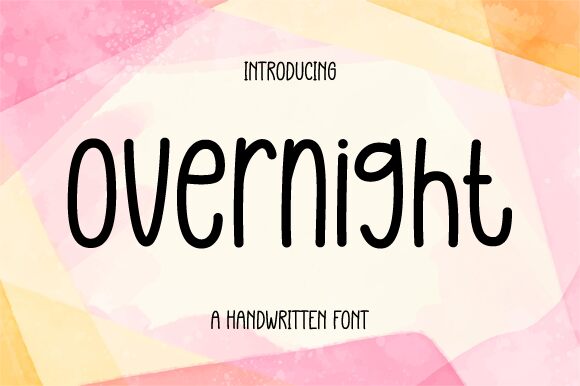
Overnight, designed by Nirmala Creative, is a font that captures the essence of personal touch with its handwritten style. Its semi-light weight lends a delicate and subtle elegance to the script, while the condensed width allows for efficient use of space without sacrificing legibility. This blend of characteristics makes Overnight not just a font but an embodiment of stylish informality.
The unique appeal of Overnight lies in its ability to convey warmth and intimacy, as if each character were thoughtfully penned down. It invites viewers into a world where every word is imbued with personality and intention. The organic flow and casual sophistication make it an excellent choice for branding projects, editorial design, personalized stationery, and any creative endeavor that benefits from a hint of human presence.
With its understated charm and versatility, Overnight promises to elevate your design work by adding an authentically handcrafted feel that resonates on both digital platforms and printed materials. Whether it's invoking nostalgia or crafting contemporary aesthetics, this font stands out as a tool for designers seeking to infuse their projects with character and distinction.